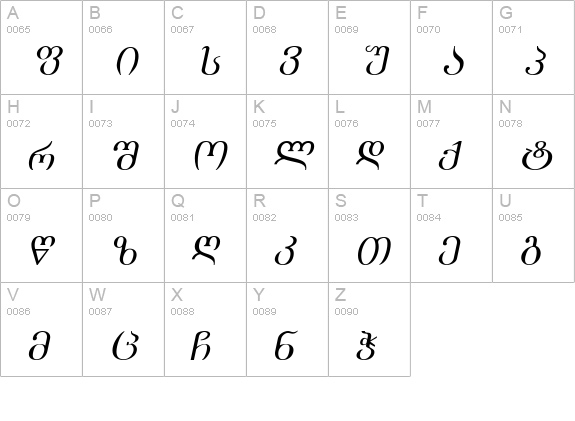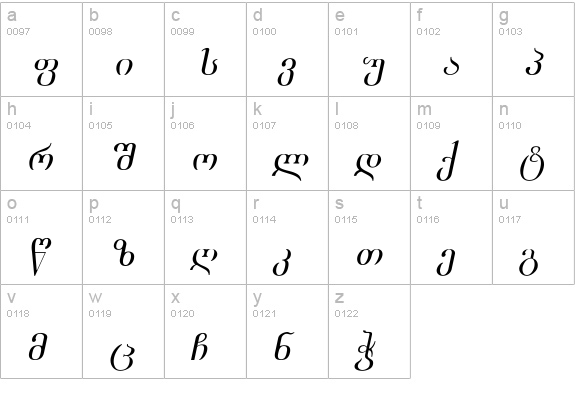
Academiury-ITV Italic Font Details
Academiury-ITV Italic is a distinctive, italic variant in the Academiury typeface family \xE2\x80\x94 well suited to design and typography projects.
Introducing Academiury-ITV Italic font, a sleek and modern typeface perfect for adding a touch of sophistication to your projects. This elegant font features gracefully slanted italics that exude a sense of style and refinement. With its clean lines and classic appeal, Academiury-ITV Italic font is ideal for a wide range of design applications, from branding to editorial design. The best part? Academiury-ITV Italic font is available for free download at FontsMarket.com. Now you can enhance your designs with this premium font without breaking the bank. Whether you're working on a logo, website, or print materials, Academiury-ITV Italic font will elevate your projects and make a lasting impression. Don't miss out on this opportunity to access this high-quality font for free and take your designs to the next level.